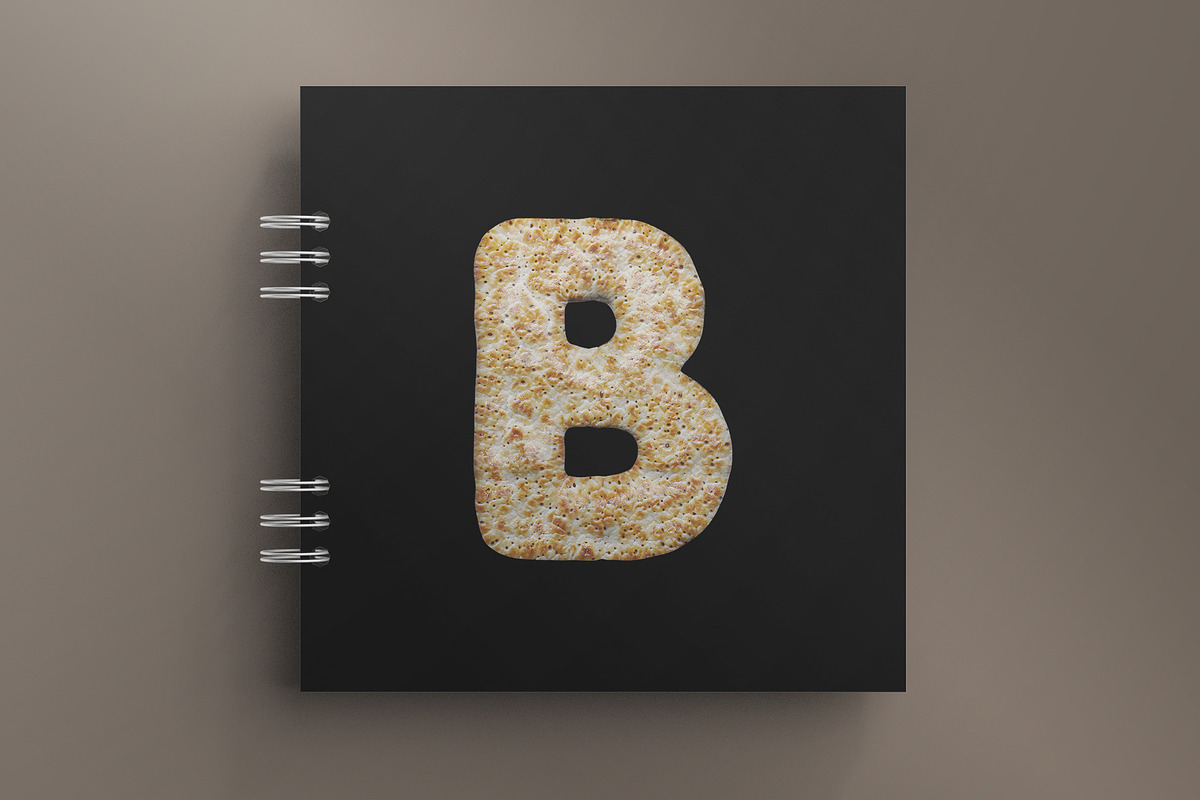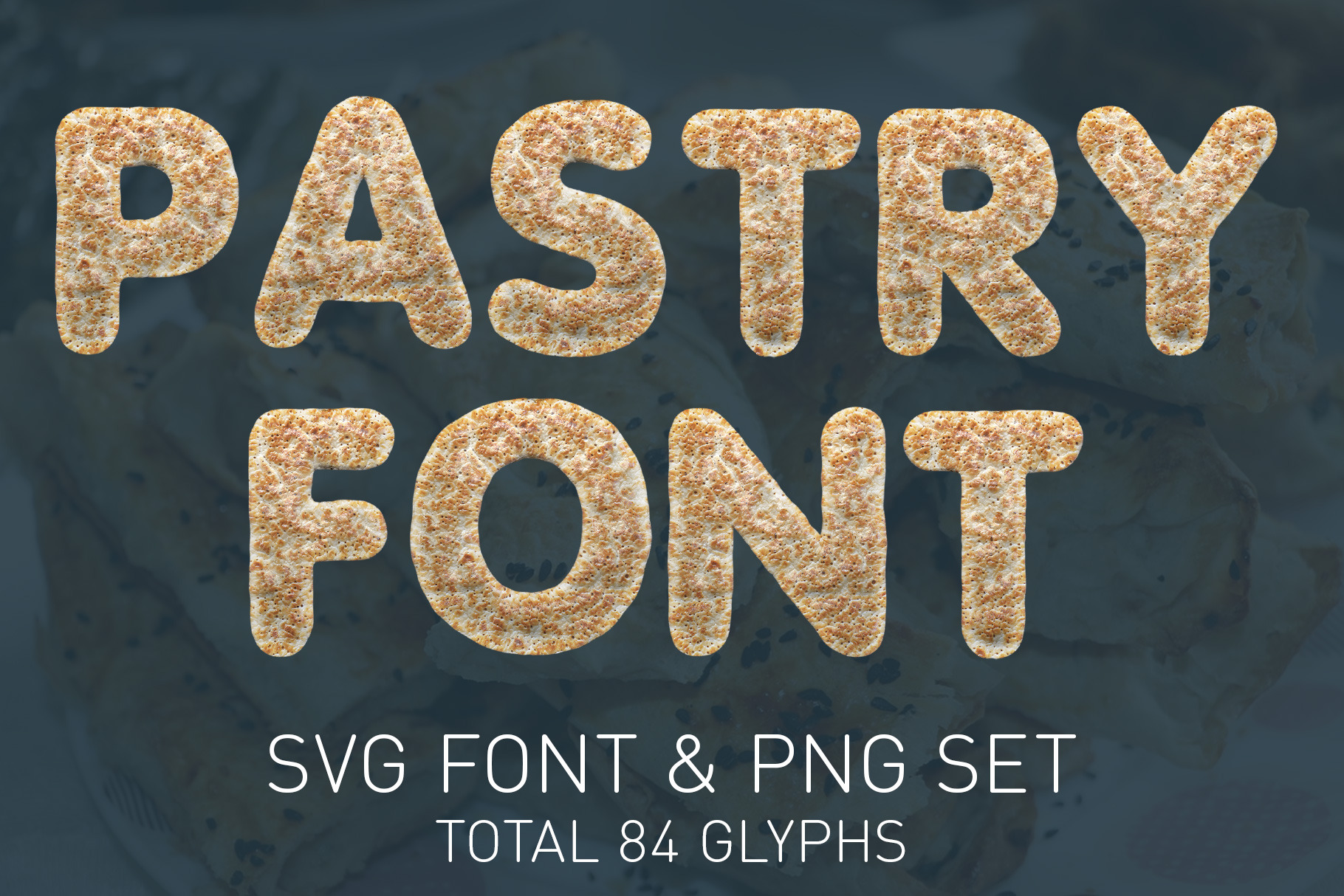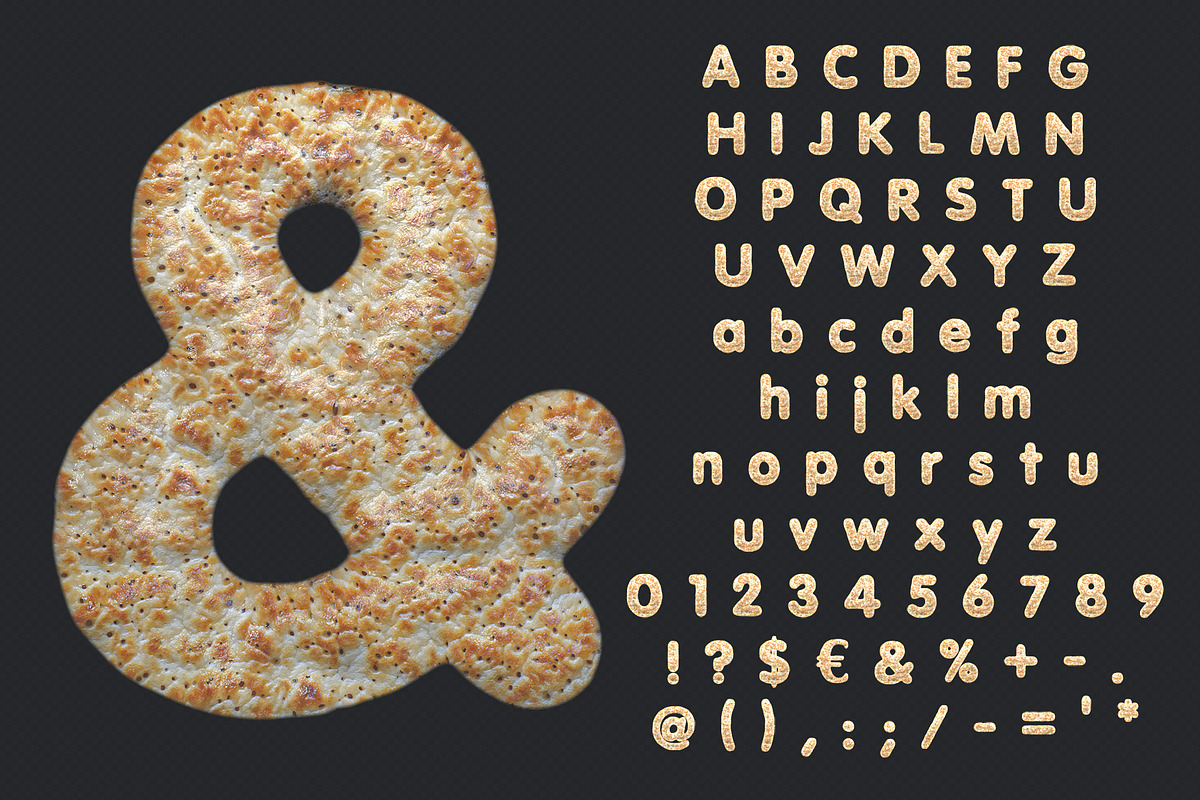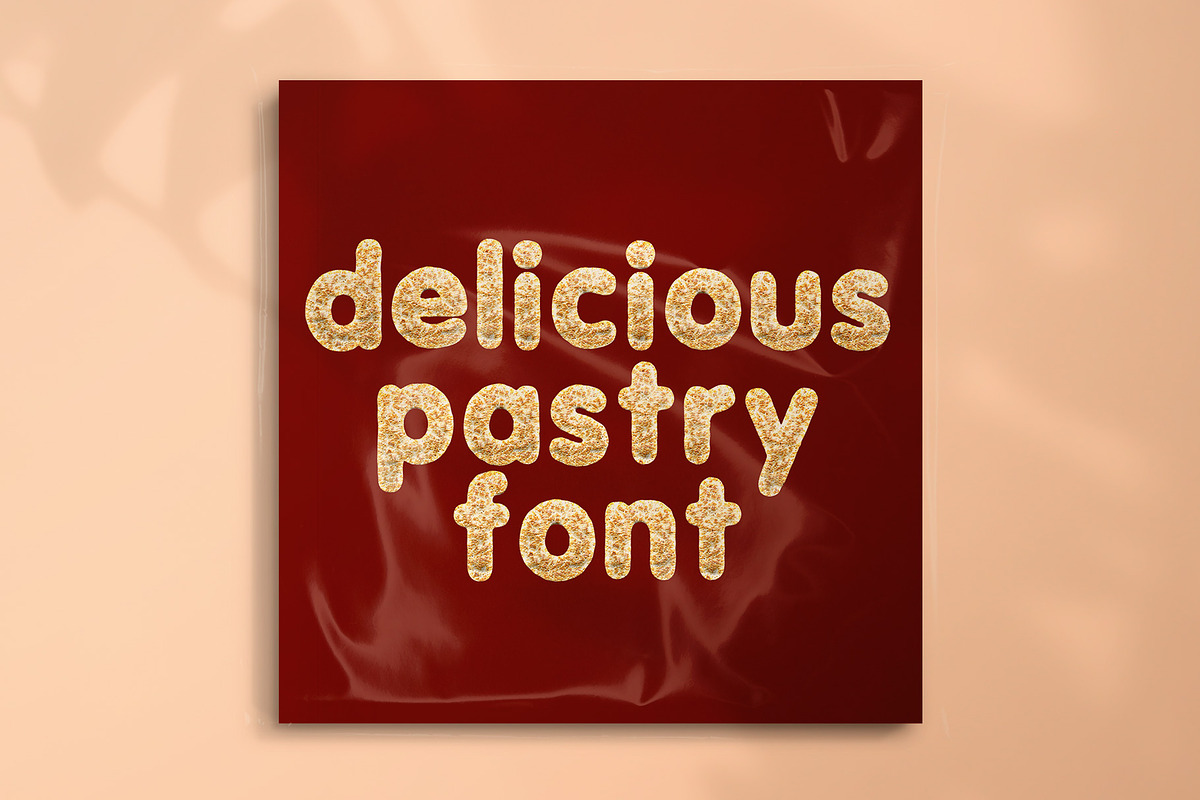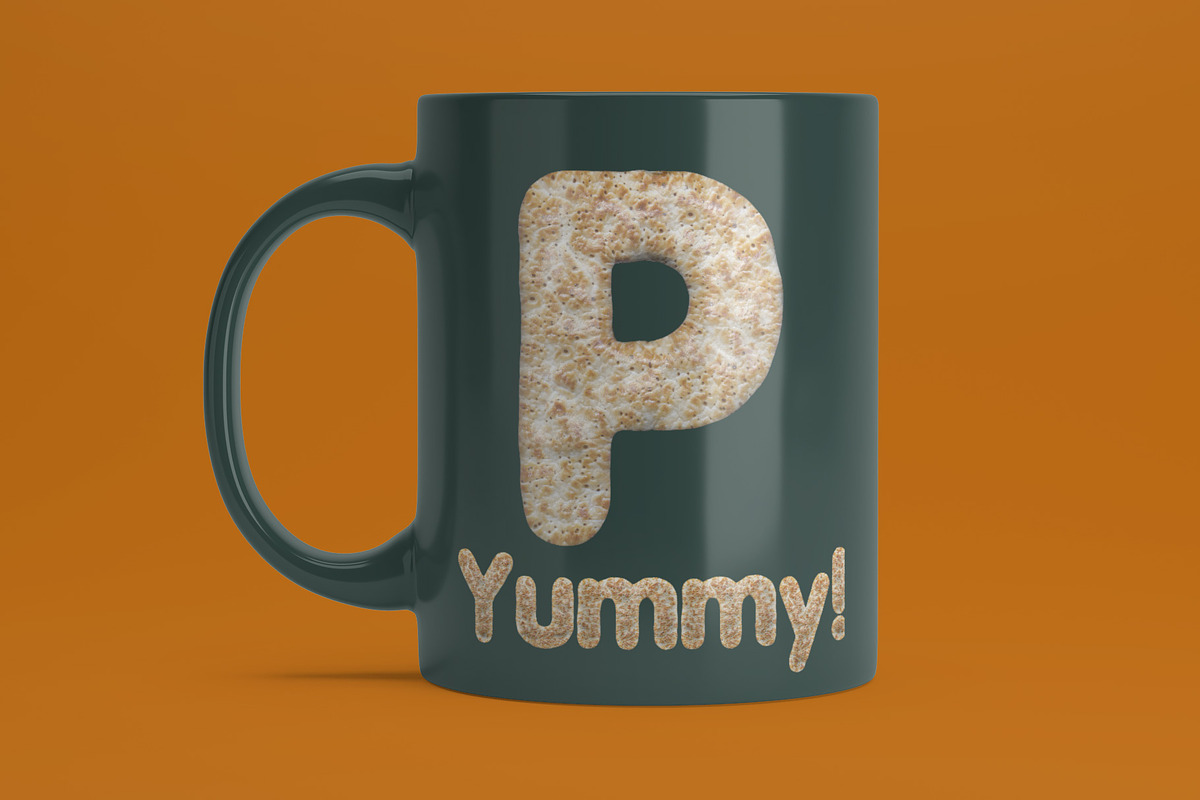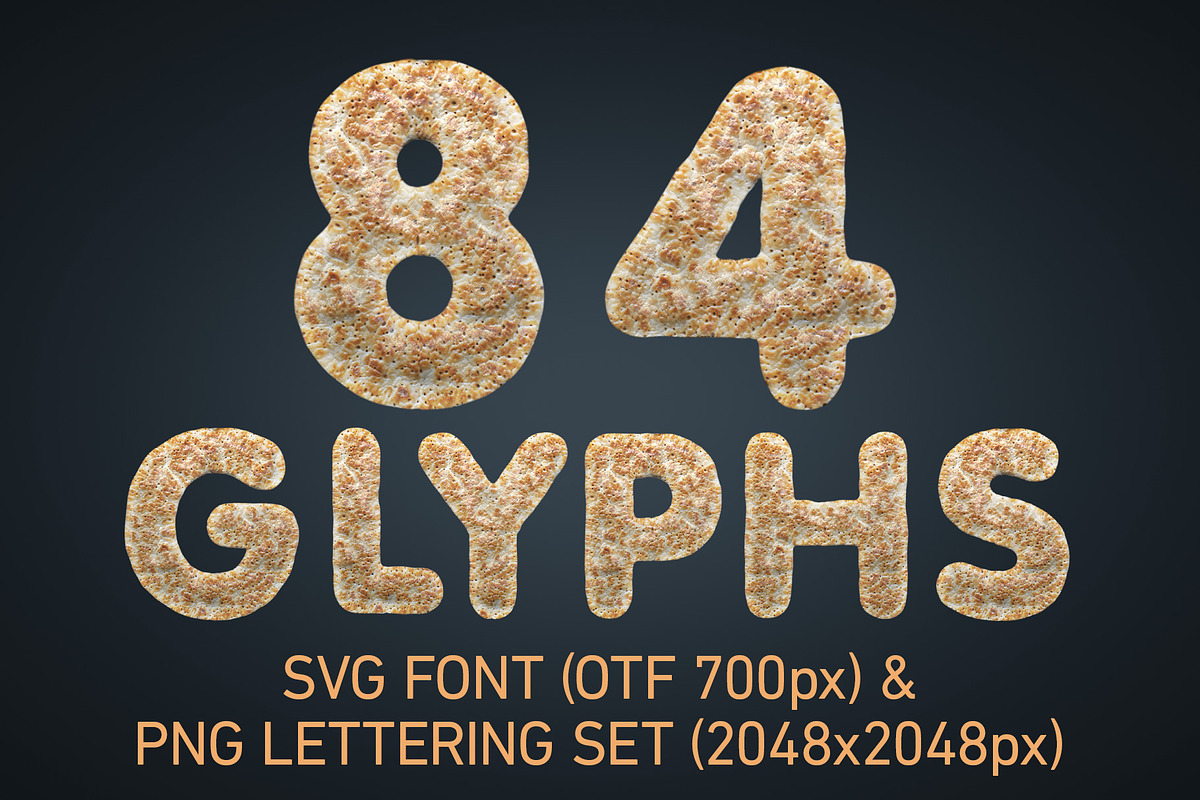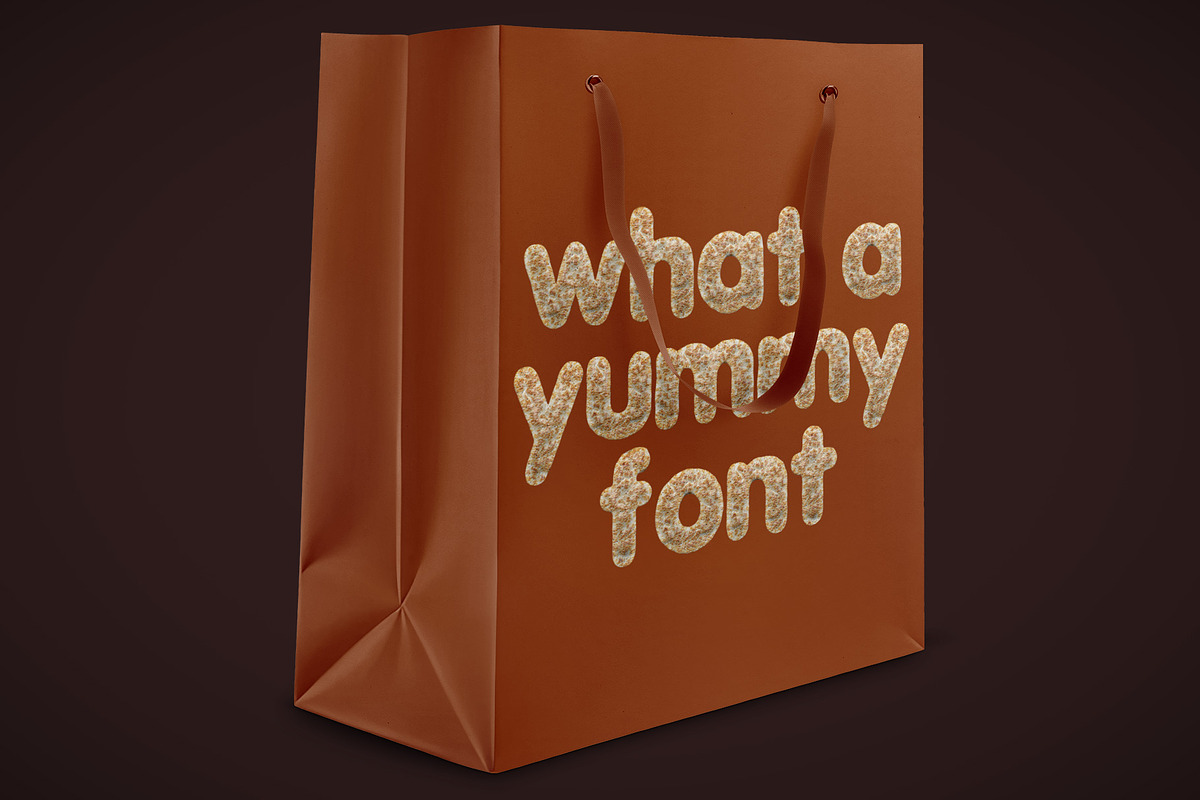
Pastry Font & PNGs
Introducing the delectable and mouth-watering Pastry Color Bitmap SVG Font and transparent PNGs, a unique and creative font that will add a touch of sweetness to your design projects. This font features 84 beautifully designed glyphs in a high-quality 2048x2048 pixel resolution transparent PNG format, providing exceptional clarity and detail.
The Pastry Color Bitmap SVG Font is perfect for a variety of design projects, including bakery branding, food packaging, social media graphics, and more. Its delicious and appetizing design is ideal for creating a warm and inviting atmosphere, perfect for promoting a range of culinary delights.
Whether you're a graphic designer, food blogger, or simply looking to add a touch of sweetness to your designs, the Pastry Color Bitmap SVG Font is the perfect choice.
What is Color Bitmap Font?
Bitmap Color SVG fonts are a type of font that uses bitmap images rather than vector outlines to display text. Each glyph is created using pixels arranged in a specific pattern, giving the font a distinctive and unique look.
One of the main benefits of Bitmap Color SVG fonts is that they can be used to create highly detailed and intricate designs, with each glyph containing a wide range of colors and shades. This makes them ideal for use in a variety of design projects, including branding, advertising, and social media graphics.
Overall, Bitmap Color SVG fonts can be a great choice for designers looking to create unique and eye-catching designs.